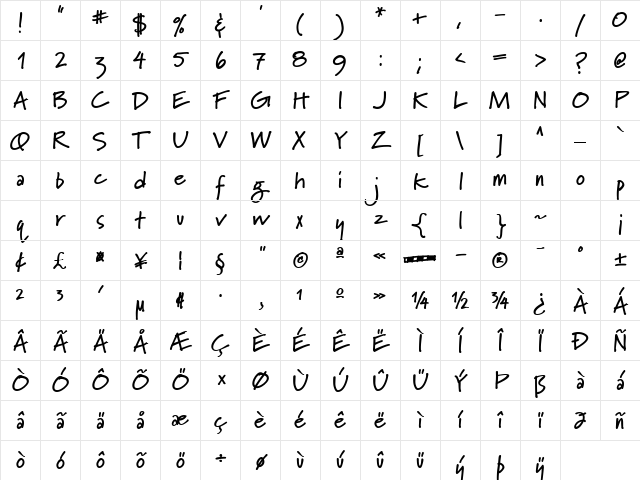
Marydale Bold Free Font
Design Context for Marydale
Marydale is a composed and adaptable typeface that performs quietly and consistently across a wide range of design contexts. Its bold stroke weight gives it real presence on the page.
Pro Tip: Use Marydale in both headline and body roles to test its range before committing to a single application.